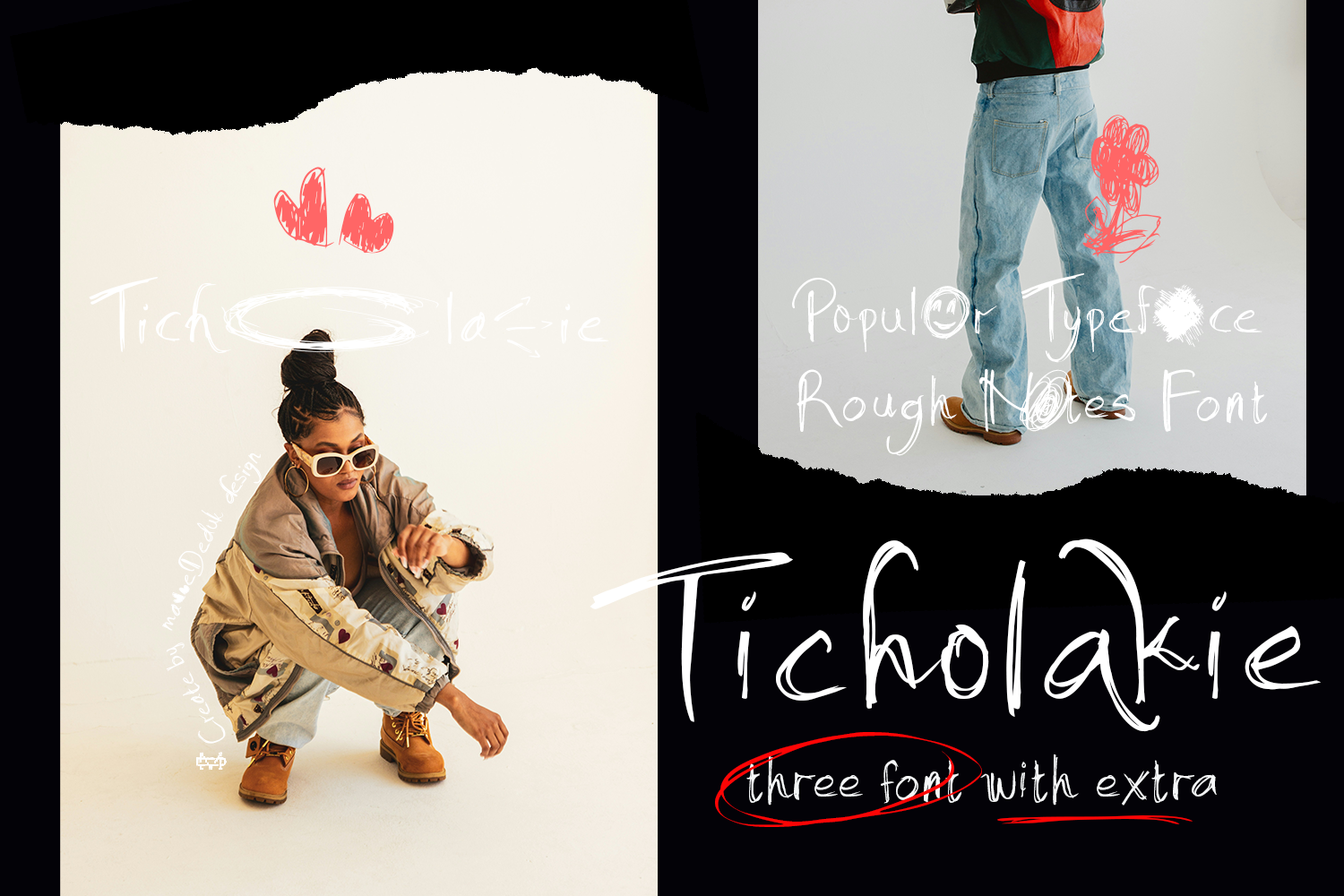
Ticholakie Note Font
Ticholakie is a note hand drawn font come with three version contains ligatures, alternative and extra which will make your design truly written by the designer himself. Ticholakie is great for branding, posters, logos, invitation, writing and headings.